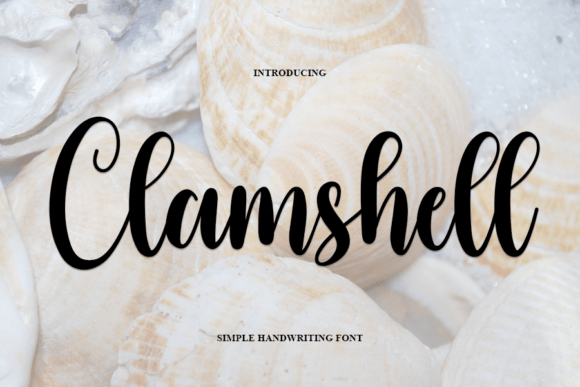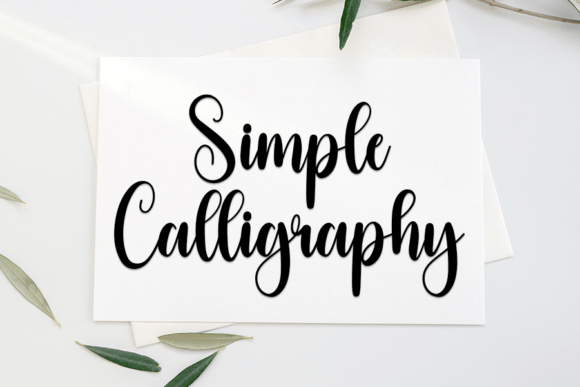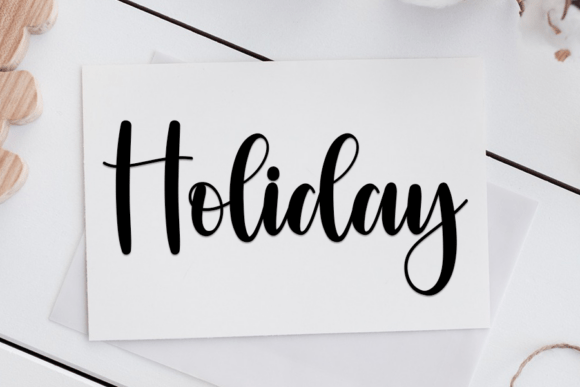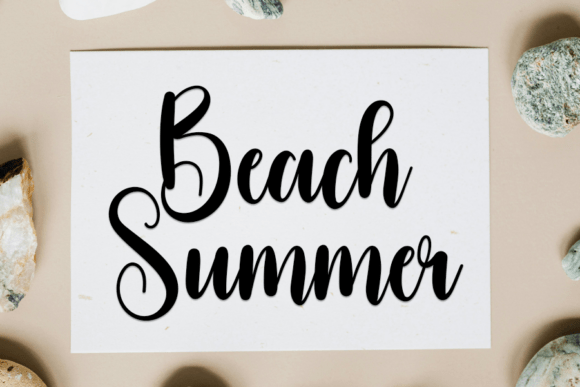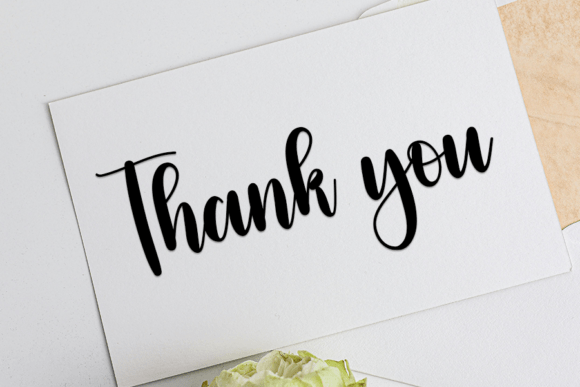
Have you ever sat at your desk, surrounded by scraps of paper, a cup of coffee, and a sea of ideas, trying to bring a unique touch to your next project? For many designers, this is a familiar scene – the spark of creativity that sets off a chain reaction of inspiration. And when that spark is the perfect font, the magic happens.
Enter Clamshell Font, a delicate handwritten font designed to add a touch of whimsy and elegance to any design. Whether you’re crafting a heartfelt letter, designing a menu for your favorite food truck, or creating a stunning invitation, Clamshell Font is the perfect tool for the job. With its unique, handcrafted style, this font is a valuable asset for designers looking to add a personal touch to their work.
With Clamshell Font, the possibilities are endless – and we can’t wait to see what you create with it.
Clamshell Font Key Features
- Unique Characteristics: The font features a distinctive clamshell-like shape, with rounded edges and a subtle curve, creating a visually appealing and modern aesthetic.
- Legibility: The font’s unique design and carefully crafted letterforms ensure excellent legibility, even at small font sizes, making it ideal for body text and long-form content.
Clamshell Font Review
I’ve had the chance to work with the Clamshell Font, and I must say it’s a mixed bag. On the one hand, there are some things that really stand out.
✨ The first thing I noticed is the unique character of this font. It’s got a quirky, playful vibe that’s perfect for projects that need a bit of whimsy. The letterforms are well-designed, with clear lines and a nice balance of thickness and thinness.
⚠️ However, I did find some limitations with the font. Firstly, it’s not as versatile as some other fonts I’ve worked with. It’s great for titles and headlines, but it can get a bit too bold for body text. Additionally, I found the font to be a bit inconsistent in terms of spacing and kerning.
⚠️ Another issue I encountered was the font’s limited support for certain languages. If you’re working on a project that requires multiple languages, you may find yourself struggling to find the right characters.
Overall, I’d say the Clamshell Font is a fun and playful addition to any designer’s toolkit. While it’s not perfect, it’s definitely worth checking out for the right project.
- Unique character and quirky vibe
- Well-designed letterforms
- Not as versatile as other fonts
- Inconsistent spacing and kerning
- Limited language support
Practical Application Guide: Clamshell Font
The Clamshell font is perfect for:
- Designing playful and whimsical graphics
- Creating retro-style logos and branding
- Adding a touch of personality to social media posts and captions